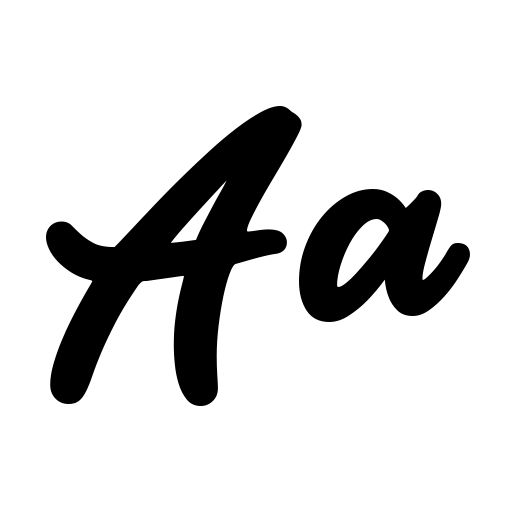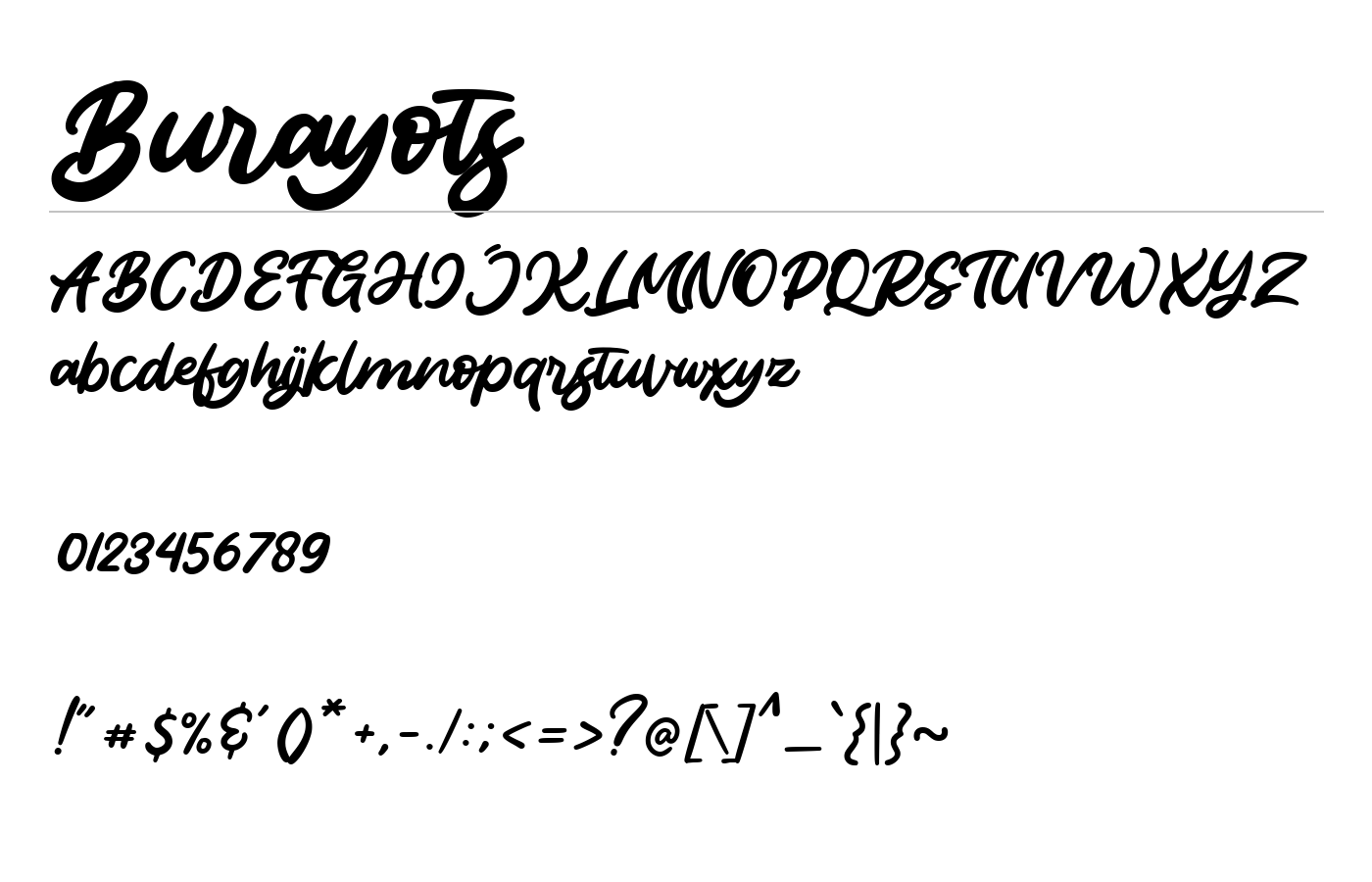
Burayots is a bold, casual script font with smooth, rounded strokes that give it a lively and approachable personality. Its moderate x-height and slightly condensed letterforms make it ideal for expressive headlines, logos, and branding that want to convey friendliness and energy. This font works best in creative and informal contexts where readability and a personal touch are important.
Burayots Font
About Burayots Font